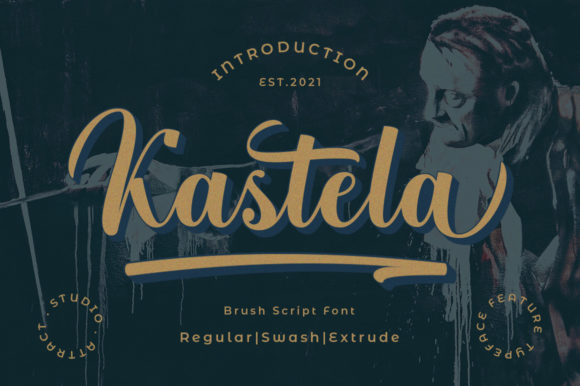
Journey through time with Kastela Font, a captivating script that oozes retro charm and nostalgic allure. This handwritten masterpiece, brought to life by the talented Attract Studio, exudes strength, confidence, and a dynamic spirit, ready to elevate your headlines and logotype projects to new heights.
Kastela's bold strokes and sweeping curves evoke a sense of yesteryear, adding a touch of vintage elegance to your designs. Its carefully crafted glyphs and ligatures, accessible with ease through PUA encoding, provide endless creative possibilities, allowing you to craft truly unique and eye-catching designs.
Picture your designs adorned with Kastela's timeless beauty – it's the perfect choice for creating eye-catching logos, posters, packaging, and more. Its versatility extends to social media graphics, invitations, and branding materials, ensuring your message stands out in a sea of digital noise.
Step into a world of creativity and nostalgia with Kastela Font. Let its retro vibes ignite your imagination and transform your designs into works of art. Embrace the power of the past to create a future that's both captivating and timeless.